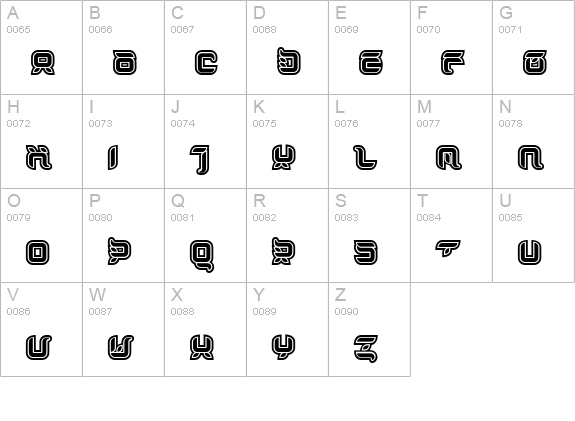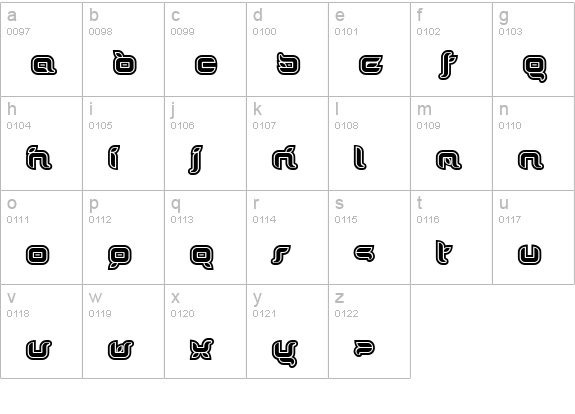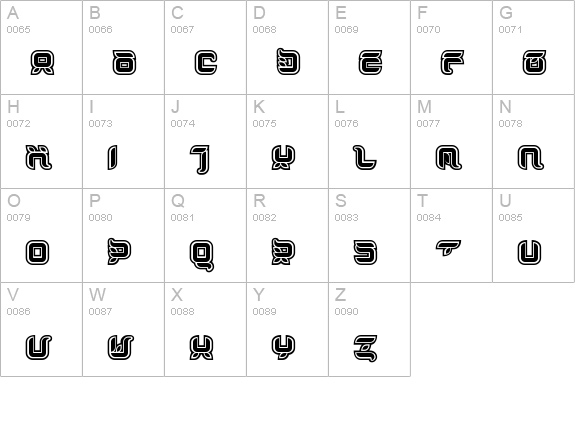
DorisOrangeOutline font is a playful and eye-catching display typeface that is sure to make a statement in any design project. With its bold and whimsical outline style, this font is perfect for adding a touch of fun and creativity to your work. The unique design of DorisOrangeOutline font is sure to capture attention and leave a lasting impression. Best of all, this font is available for free download at FontsMarket.com, making it easily accessible for all your design needs. Add a pop of personality to your projects with DorisOrangeOutline font today!